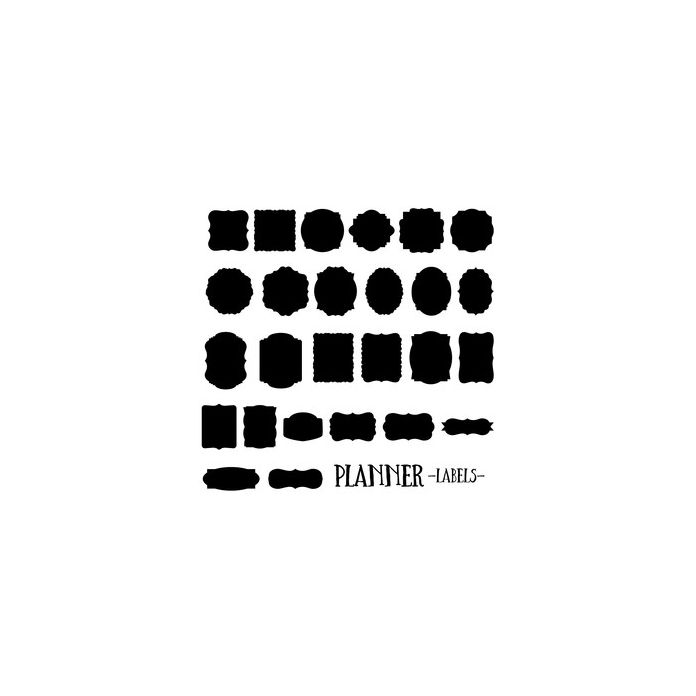
Planner Labels Dingbat Font. Includes 26 label shapes. Perfect for labels for planning and planners, scrapbook page elements and embellishments, background mats for card making or craft projects and more! For more design ideas, coordinating designs & products and inspiration, please visit my blog http://www.sarahhurleyblog.com